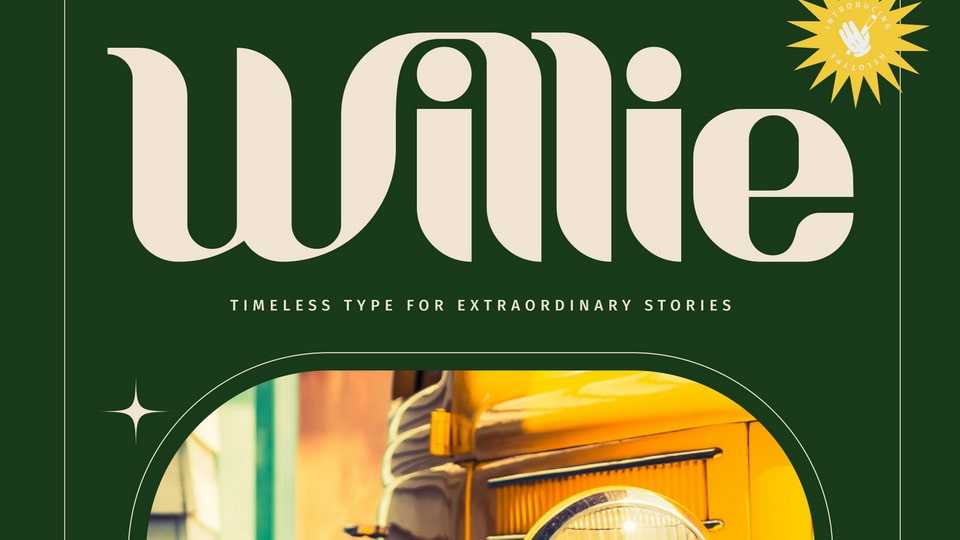
Download Willie font, a stunning display typeface that captures the timeless elegance of vintage design. Its unique, flowing letterforms evoke a sense of nostalgia.